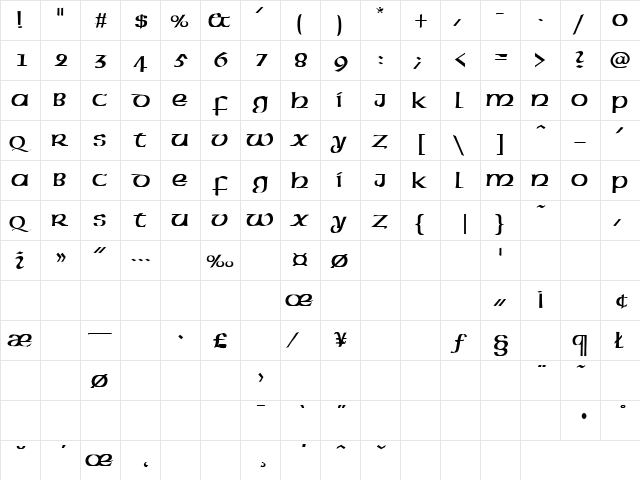
Gypsy Boots 2 Regular
Design Context for Gypsy Boots 2 Typeface
Gypsy Boots 2 takes a measured approach to typography — its balanced proportions and neutral character make it a reliable workhorse for both digital and print work.